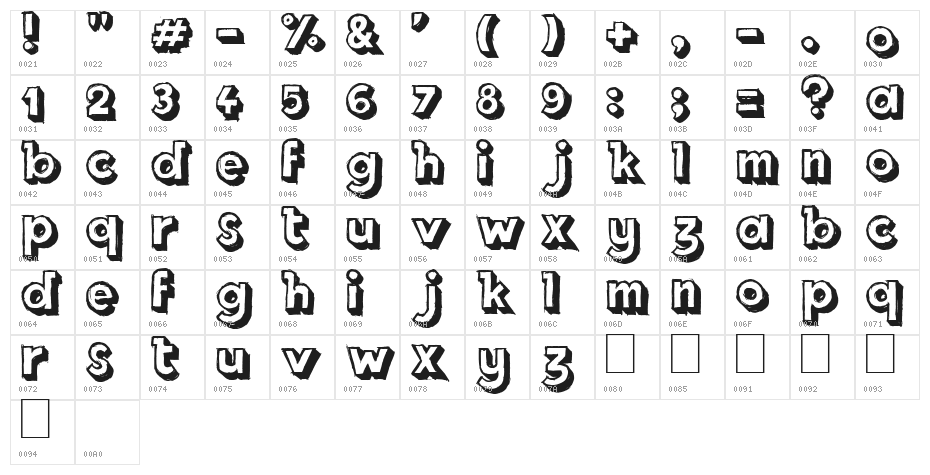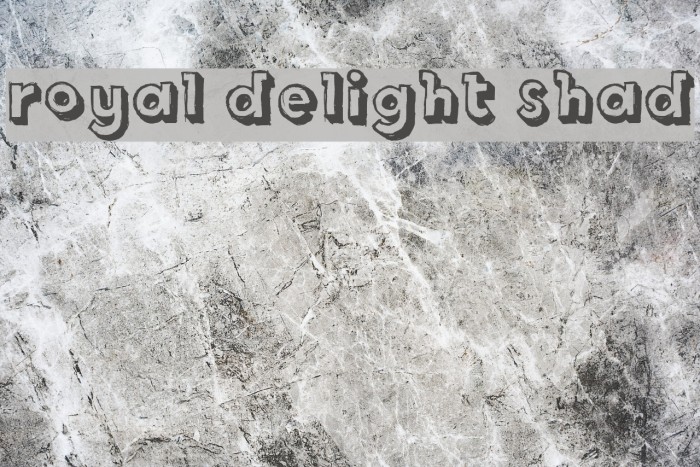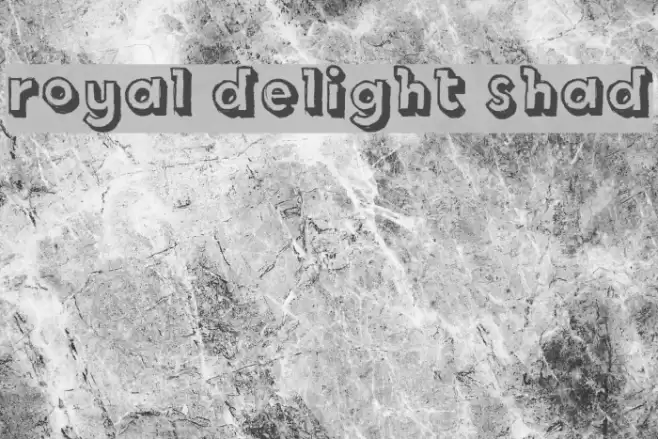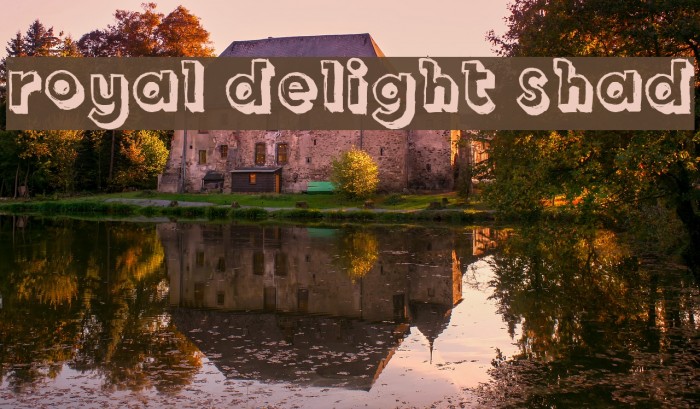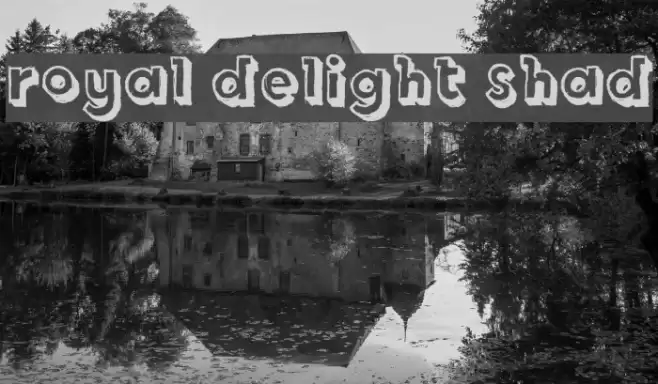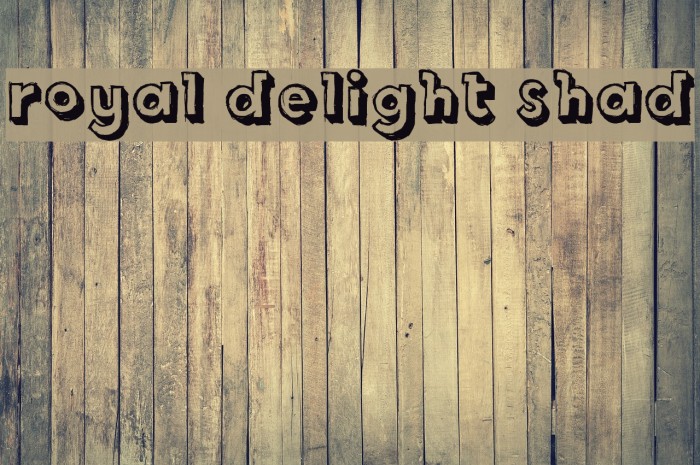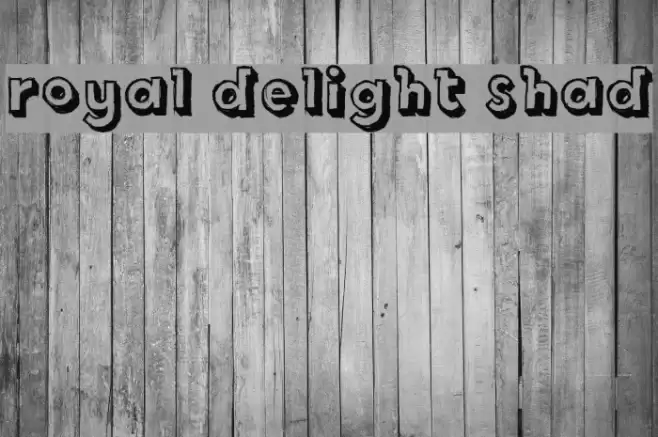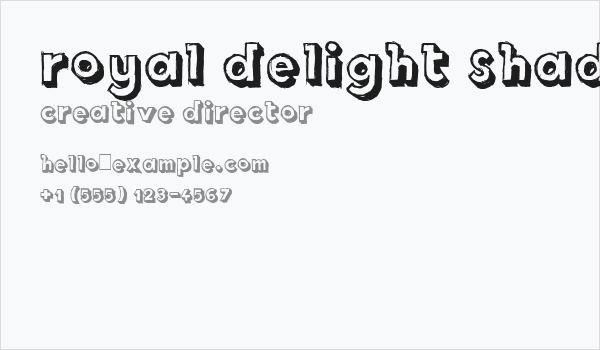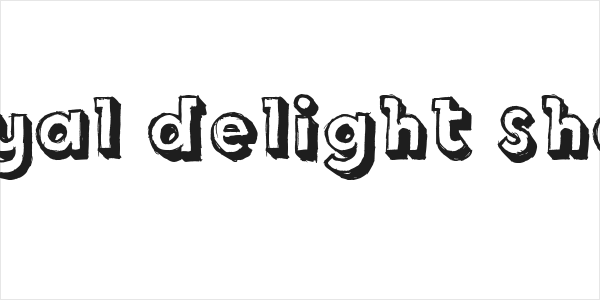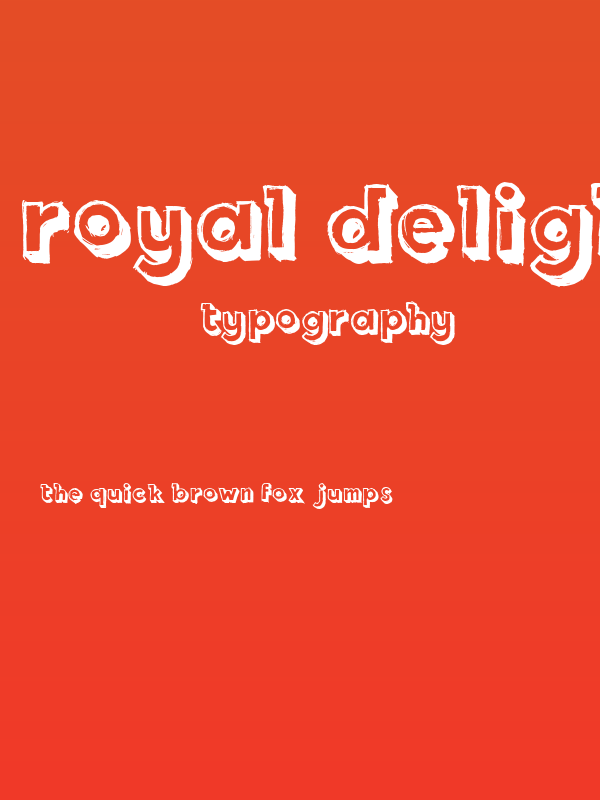
Royal Delight Shad Font
Royal Delight Shad Description
This font features a bold, playful style with a distinct shadow effect that gives each character a three-dimensional appearance. The letters are rounded and slightly irregular, adding a whimsical and informal touch. The uppercase and lowercase letters maintain a consistent style, with the shadow creating a sense of depth. Numbers and special characters are designed to match the playful aesthetic, making them stand out with their bold presence. The overall look is eye-catching and suitable for creative projects that require a fun and engaging typeface.
Overall StylePlayful, Whimsical
Use CaseHeadlines, Posters, Branding
Proposed ProjectsIdeal for children's books, playful branding, posters, and creative invitations.